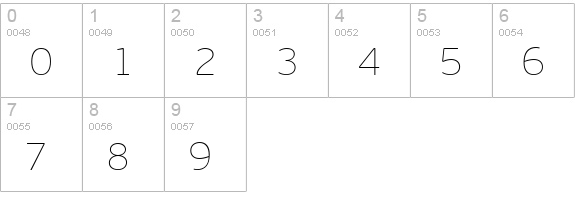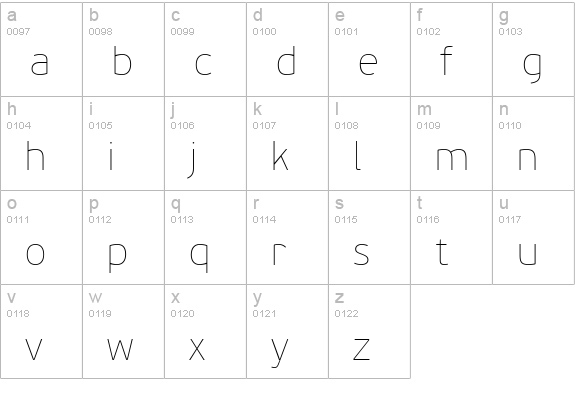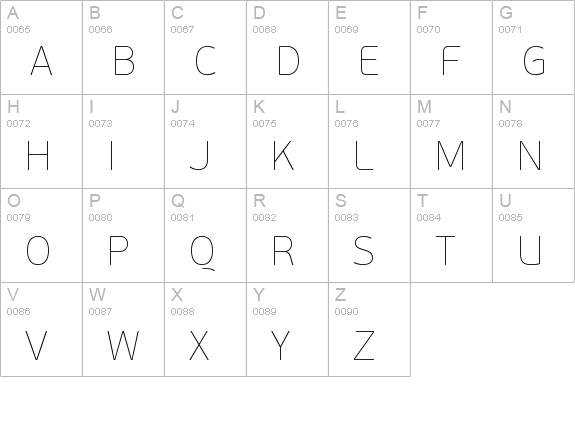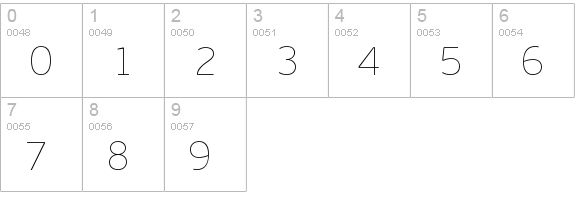
PFBeauSansPro-XThin Font Details
PFBeauSansPro-XThin is an exquisite and elegant typeface that exudes sophistication and modernity. With its ultra-thin strokes and sleek design, this font is perfect for adding a touch of refinement to any project. The clean lines and balanced proportions of PFBeauSansPro-XThin make it ideal for use in a variety of design applications, from branding to editorial design. What sets PFBeauSansPro-XThin apart is not just its stunning appearance, but also the fact that it is available for free download at FontsMarket.com. This means that you can elevate your designs without breaking the bank, making it a valuable addition to any designer's toolkit. Don't miss out on the opportunity to enhance your projects with the timeless beauty of PFBeauSansPro-XThin – download it today and see the difference it can make in your work.